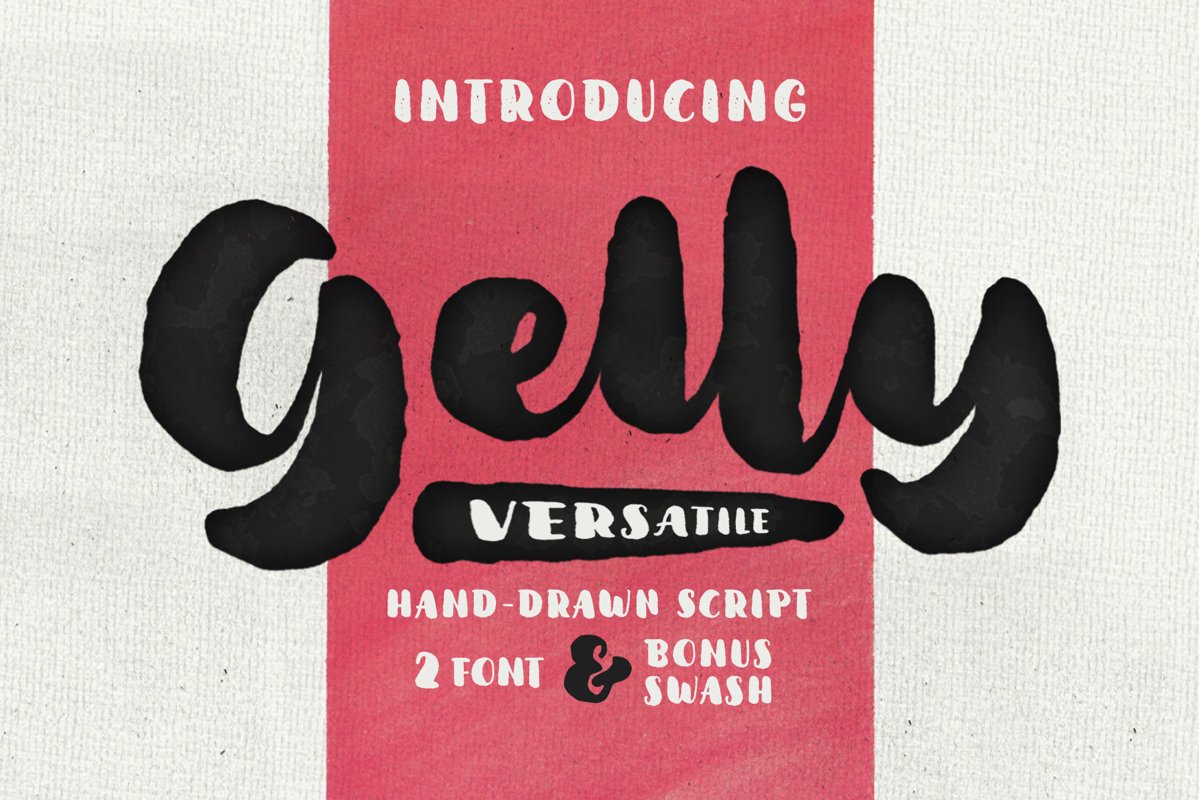
Gelly Script
Gelly-Regular
Gelly-Stipple
Gelly Script is a modern calligraphy script . Inspired by the modern calligraphy lettering and watercolor brush. This fonts have 2 version Regular and Stipple also dancing baseline to ensure that is modern calligraphy lettering style. The basic principle of creation is striping of thick and thin lines. This fonts is also have alternative characters, contextual alternates, when meets the same letter. Those all will make you work easily to create : Posters, Logos, Print, Quotes, Headers, Clothing, etc.